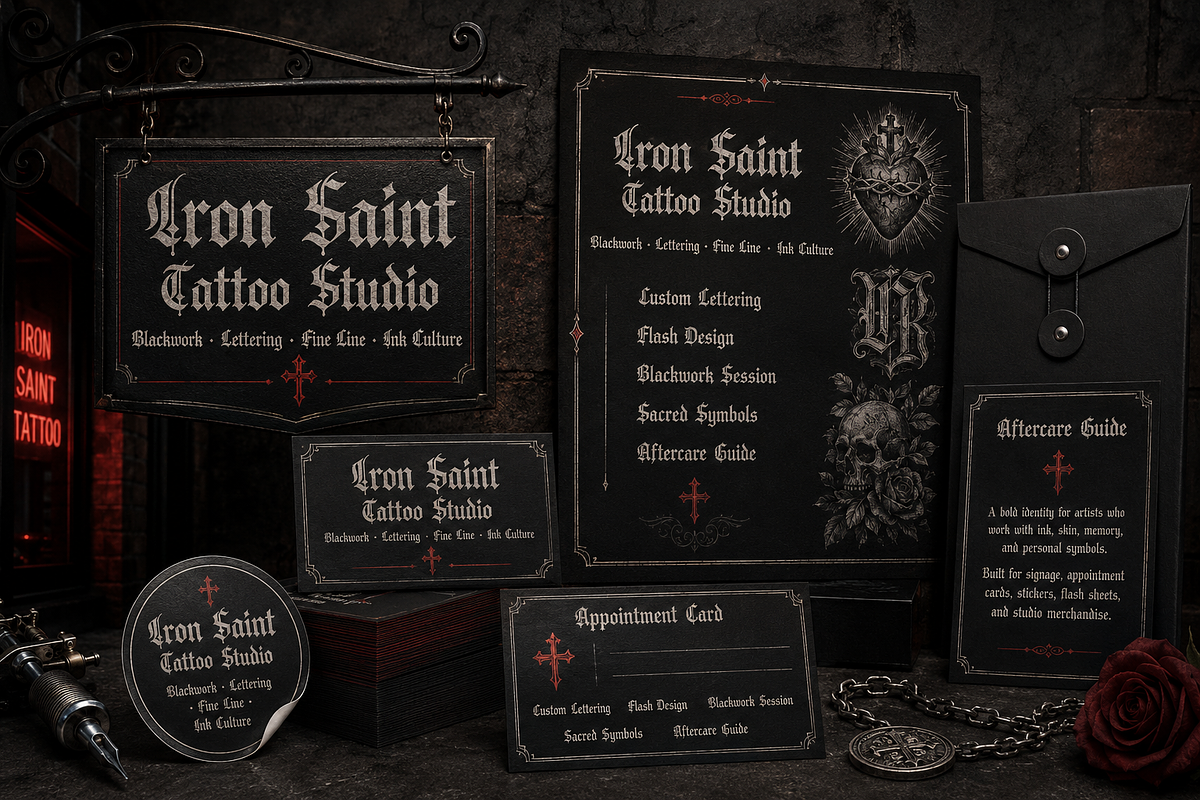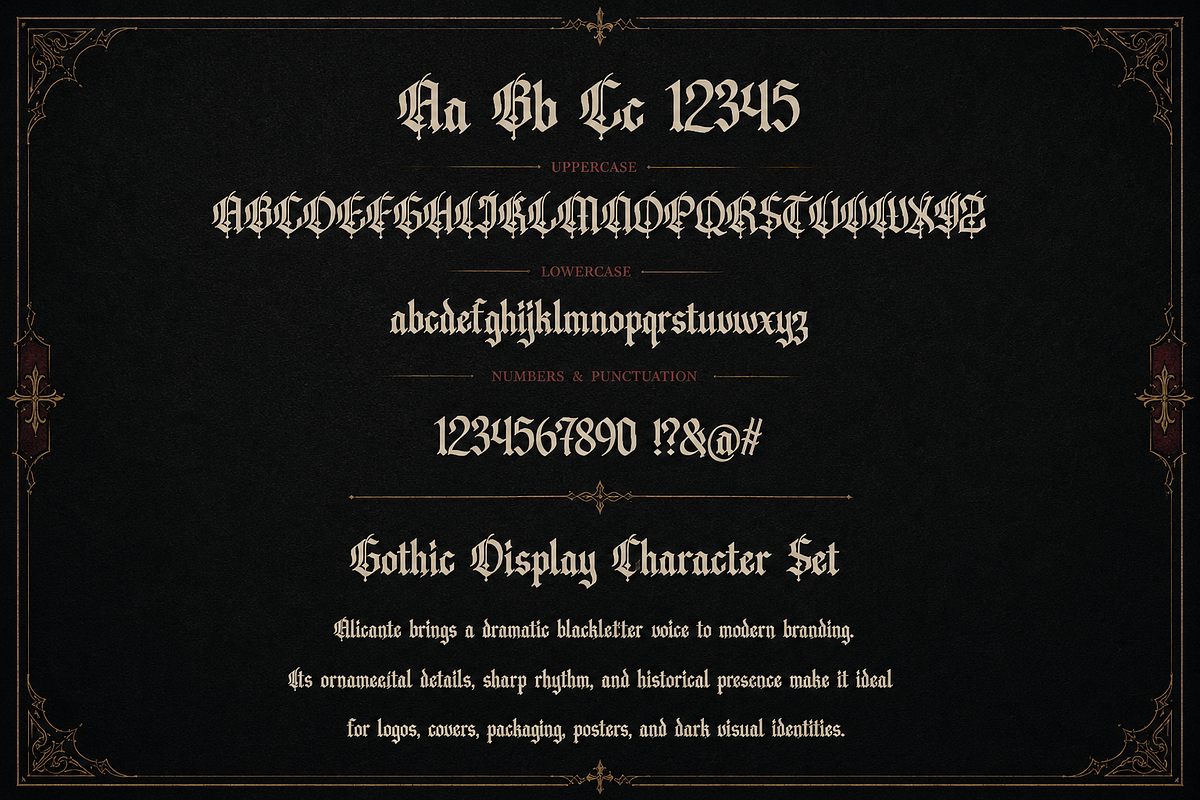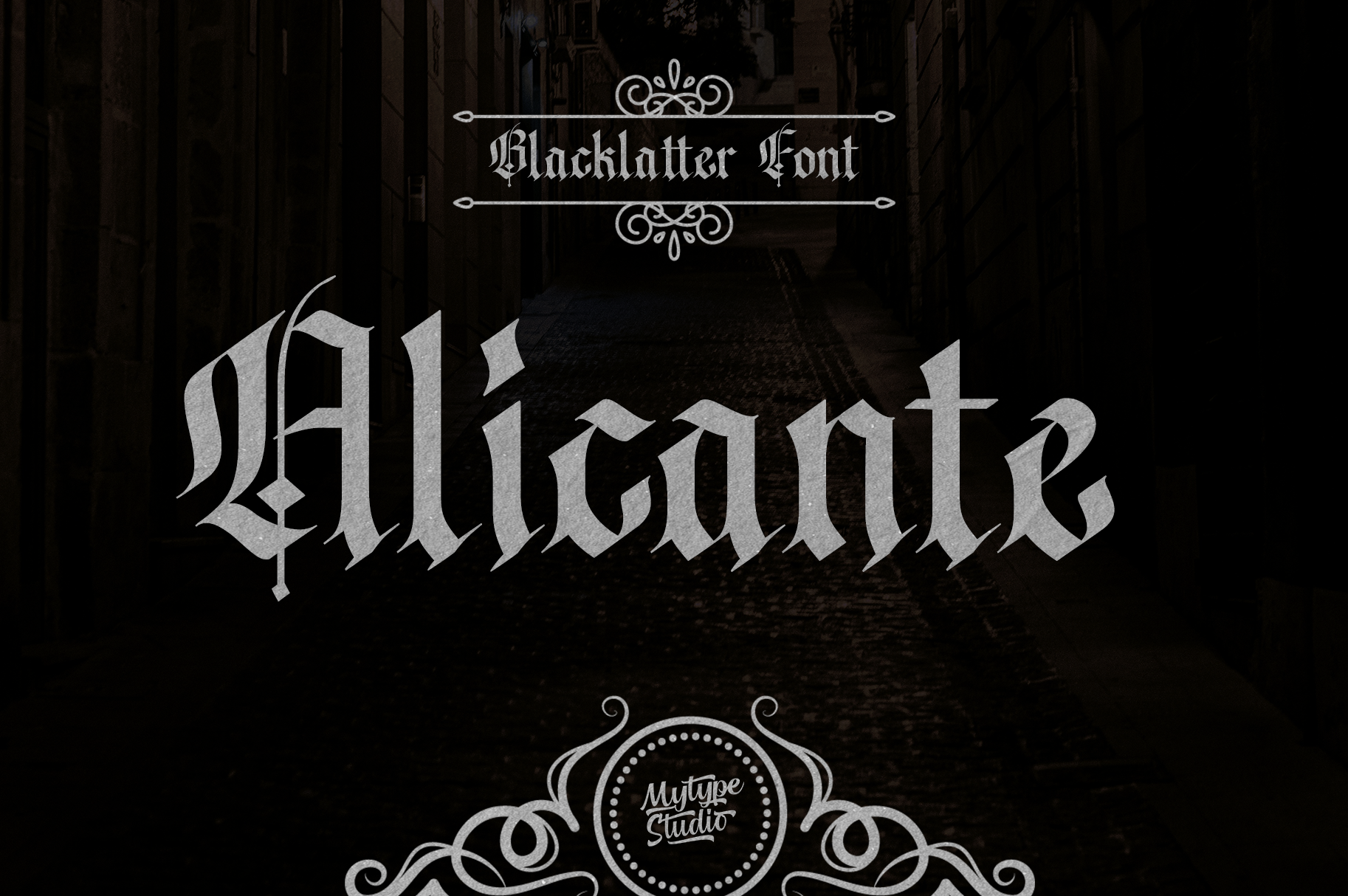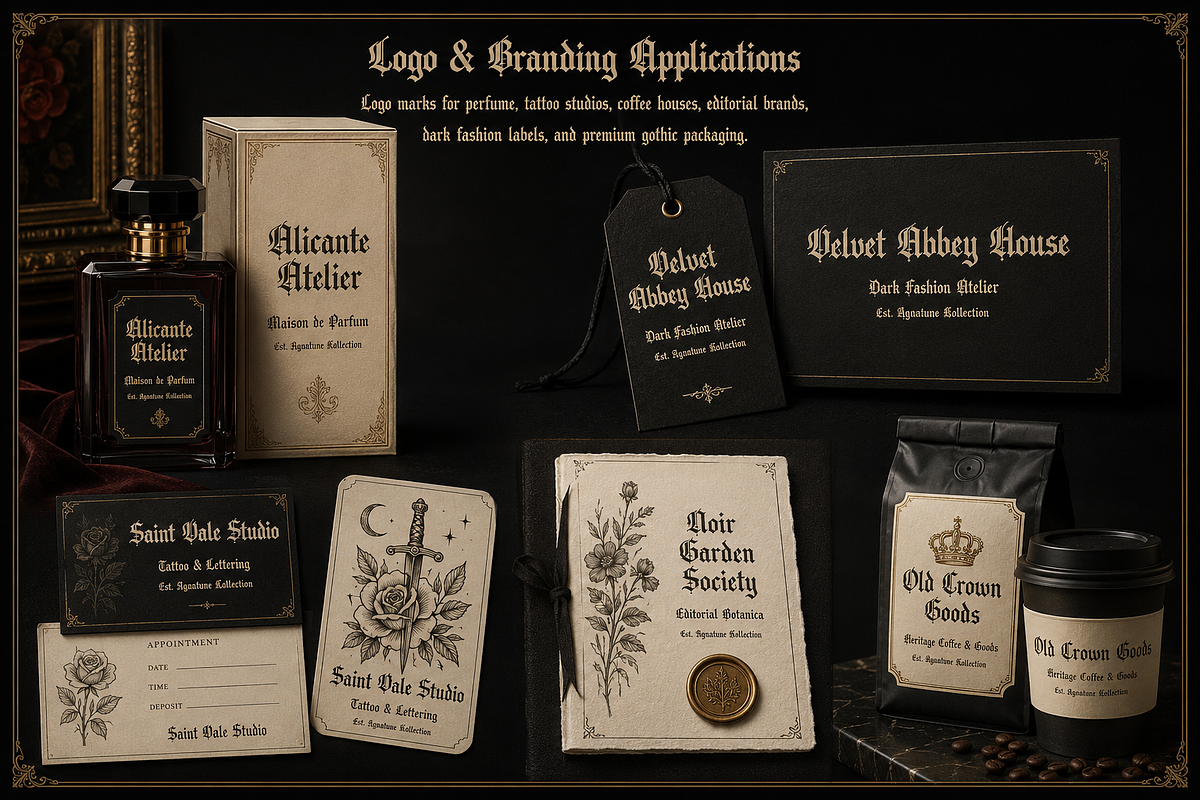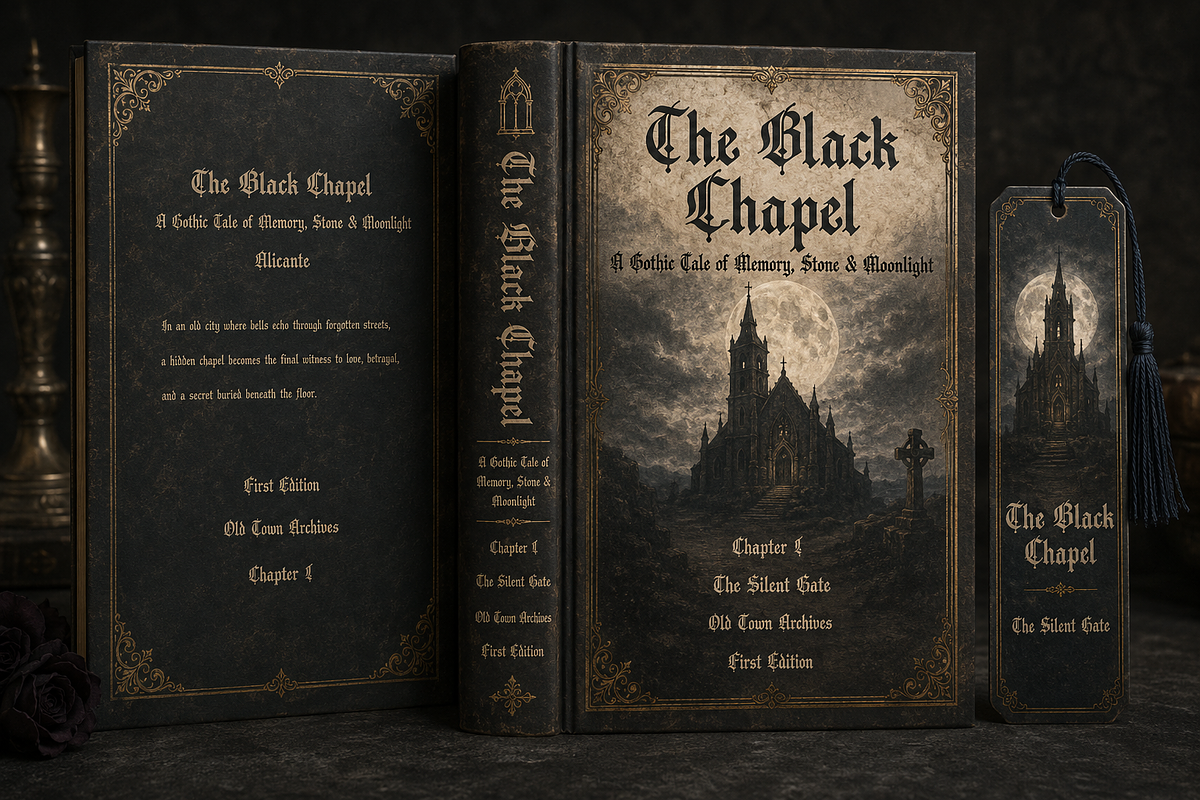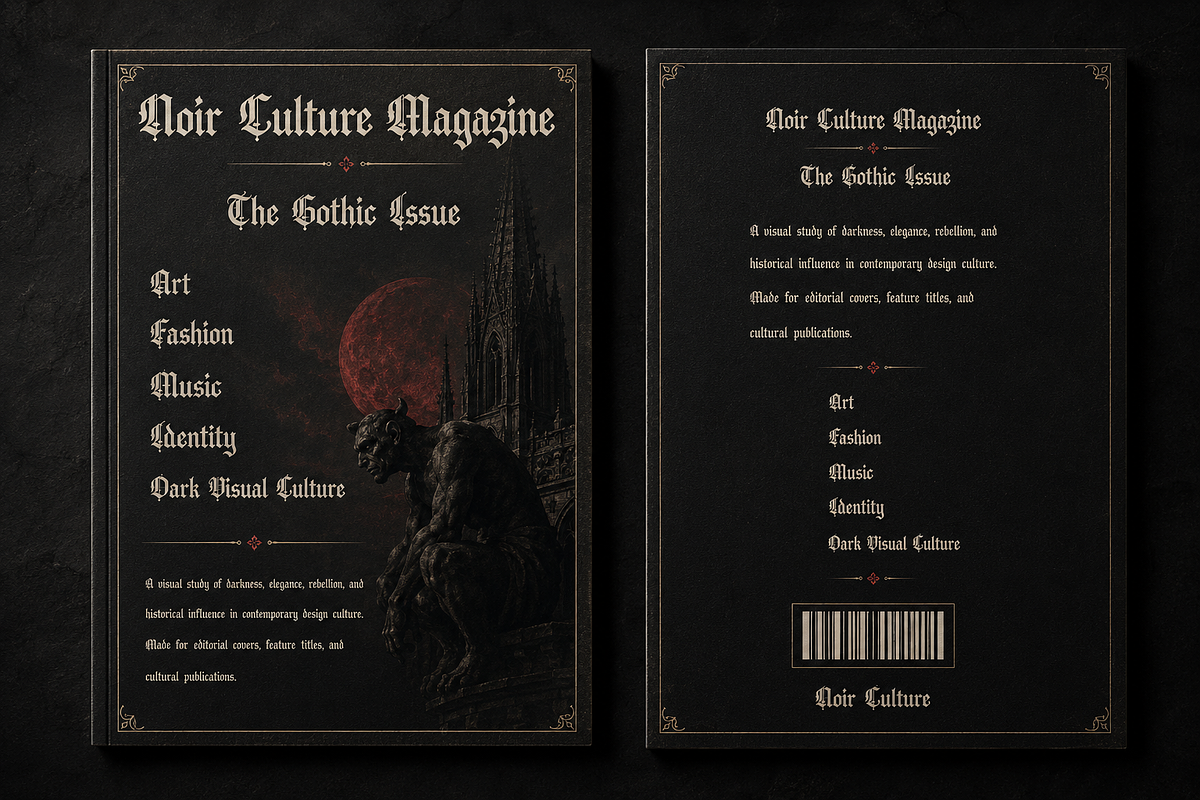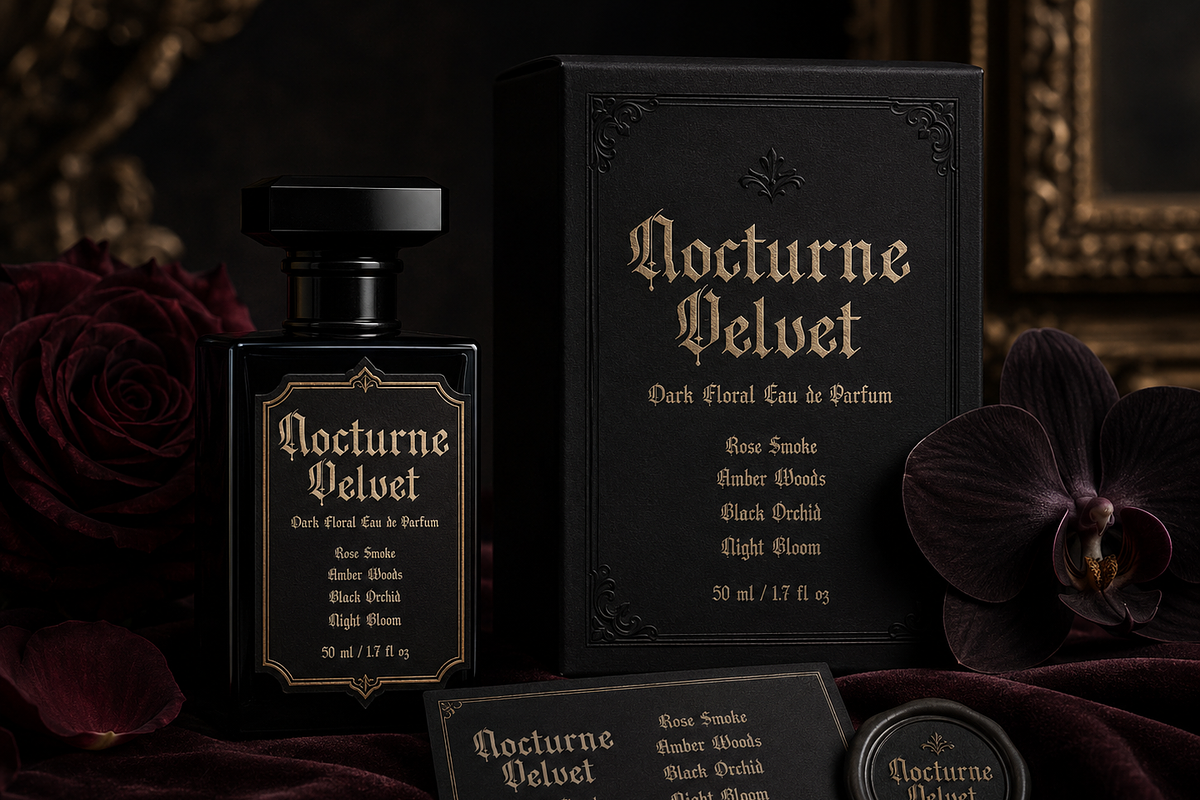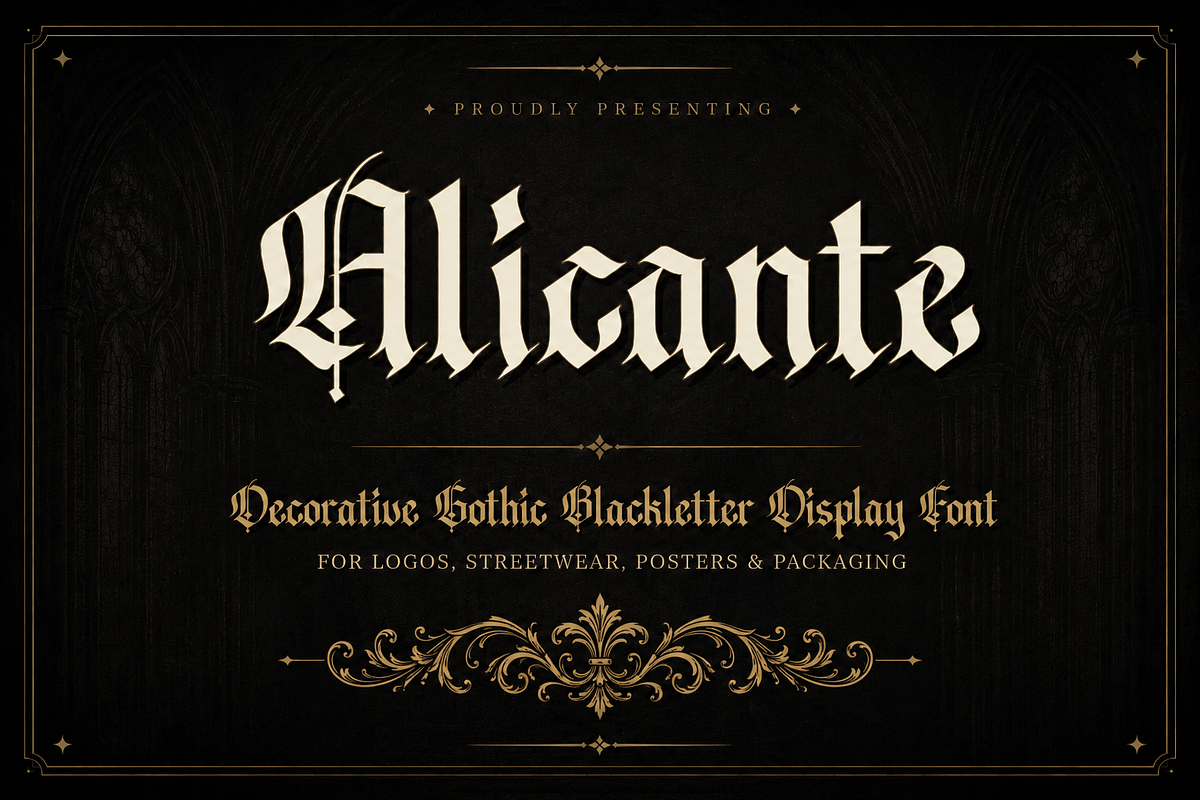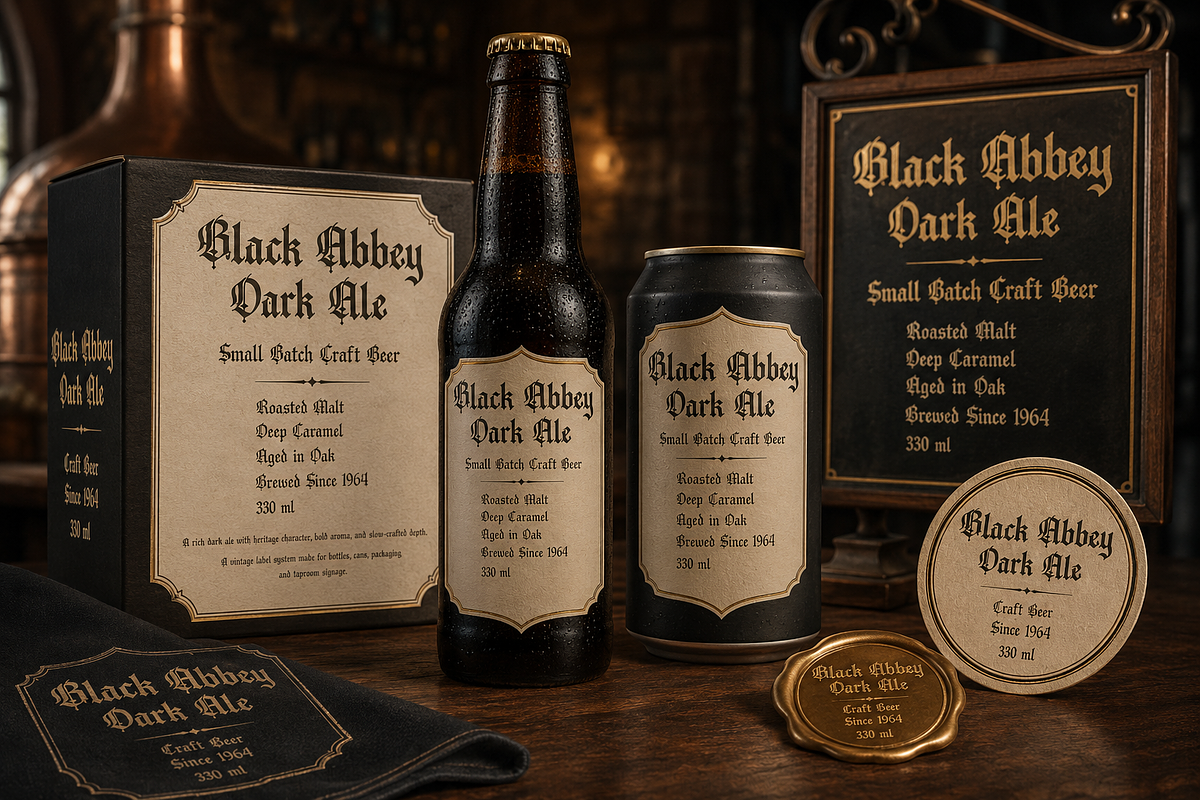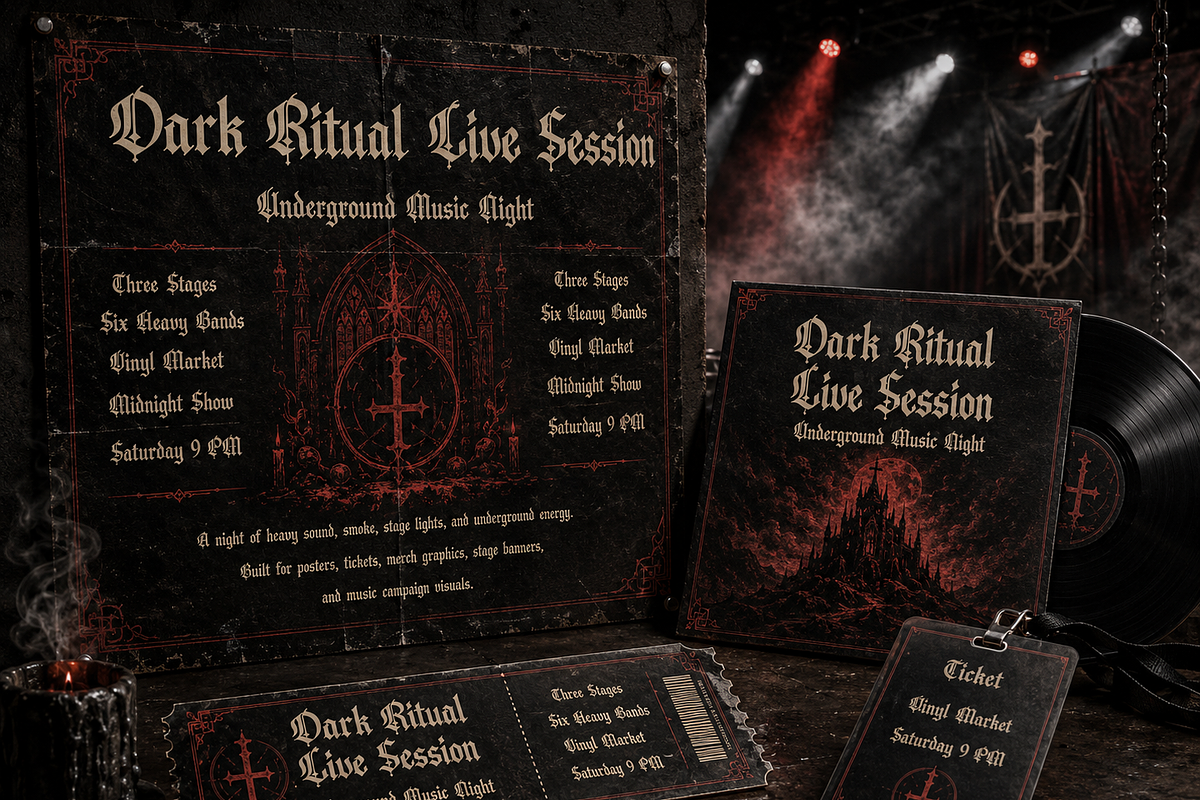
Alicante – Blackletter Font
Alicante is a bold and striking Blackletter font that blends the elegance of medieval calligraphy with a modern edge. With its sharp strokes, dramatic curves, and intricate details, Alicante is perfect for projects that demand a sense of tradition, authority, and timeless style.
Whether you’re designing logos, posters, book covers, tattoos, apparel, music album covers, or branding, Alicante delivers a powerful visual impact that stands out. Its gothic-inspired character makes it versatile for both vintage and contemporary designs.
Bring a touch of medieval artistry and gothic flair to your designs with Alicante – a Blackletter typeface crafted to make your work unforgettable.